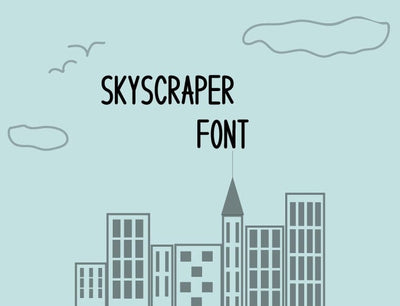
Inspiring Skyscraper Font OTF TTF, A Bold Tall Display Font for Big Dreams & Bold Statements
Skyscraper – A Bold, Tall Display Font for Big Dreams & Bold Statements
Make your message unmissable with Skyscraper, a commanding display font designed to rise above the rest. With thick, ultra-tall letterforms and a sleek modern finish, this font is perfect for standout headers, posters, branding, product packaging, and social graphics.
Whether you’re designing for high-rise ambition or adding height and drama to your next project, Skyscraper brings structure and impact to every pixel.